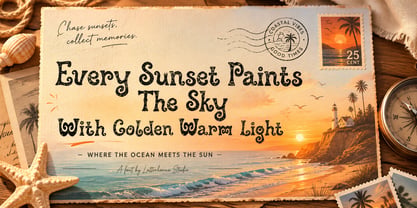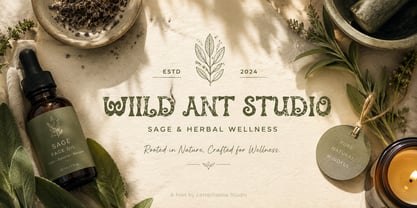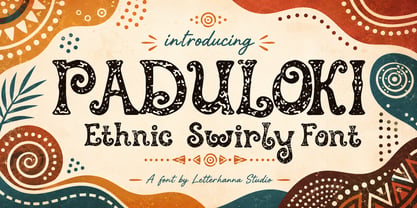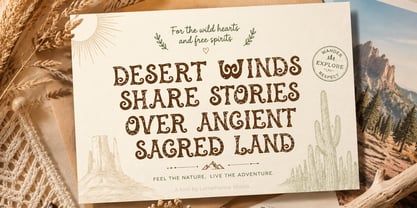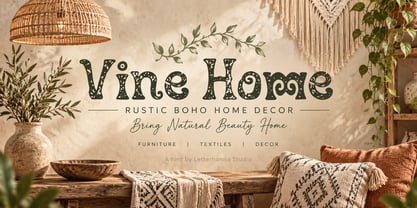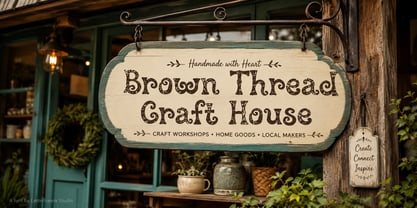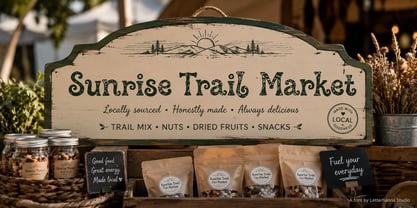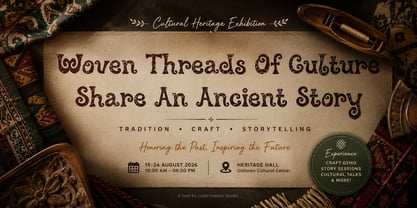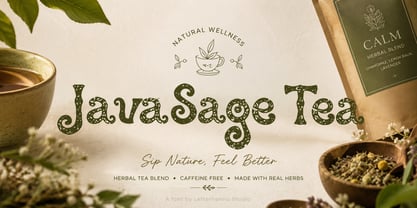
Paduloki
There's a particular kind of magic in typefaces that feel handmade — the slight imperfections, the generous curls, the sense that a real hand guided every stroke. Paduloki captures that magic completely. It's a swirly font built for designers who want their work to feel less like a template and more like a story.
Picture a young designer opening her laptop at a small studio, tasked with branding a new artisan market. She scrolls through dozens of curly fonts, but everything feels too polished, too digital, too disconnected from the handmade goods she's designing for. Then she finds Paduloki — and suddenly, everything clicks. The dotted texture inside each letter mirrors the embroidery on the market's woven baskets. The looping swashes echo the curling henna patterns painted on the vendors' hands. It doesn't just look pretty; it tells the same story her brand is trying to tell.
That's the heart of what makes Paduloki a genuinely creative swirly font. Every letterform is filled with a fine scatter of dots and doodled florals, creating a rich, tactile surface texture rather than a flat, printed look. Combined with bold, rounded strokes and deep, sweeping curls, the alphabet feels alive — bouncy in the lowercase, confident in the uppercase, and full of rhythm throughout.
There's also a distinct tribal font influence running through the design. The dotted fill and organic curling shapes nod to traditional textile and beadwork patterns found across many folk art traditions, giving Paduloki an earthy, handcrafted warmth. It reads as global and grounded at once — never gimmicky, always authentic.
As a swirly typeface, Paduloki is remarkably flexible. It suits earthy, bohemian branding, but it's just as comfortable on a birthday party invitation, a farmer's market sign, or a children's book cover. Its playful font energy makes it approachable, while its intricate detailing gives it enough depth to feel premium and considered — not just "cute."
Designers working on packaging will especially appreciate how well Paduloki performs at large sizes. The dot texture and curling swashes need room to breathe, so it's best used in headlines, logos, and hero text rather than small paragraphs. Pair it with a clean, neutral sans-serif for supporting text, and the contrast lets Paduloki's personality shine even brighter.
What ultimately sets Paduloki apart from other curly fonts on the market is its sense of narrative. It doesn't feel like it was generated to fill a category — it feels like it was grown out of a specific inspiration: hand-stitched textiles, folk art traditions, and the joy of imperfect, human-made things. That's a rare quality in display typography, and it's exactly why designers keep coming back to fonts with soul.
If your next project needs a little warmth, a little whimsy, and a whole lot of handcrafted charm, Paduloki might just be the swirly font you didn't know you were looking for.